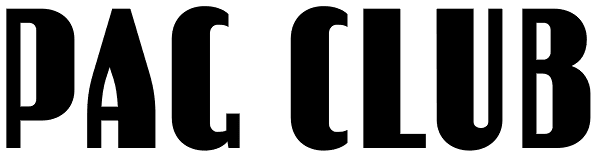
PAG Club
Inspired by retro lettering on advertising and propaganda posters from the 30s to 50s. This is a perfect font for your retrospective project.